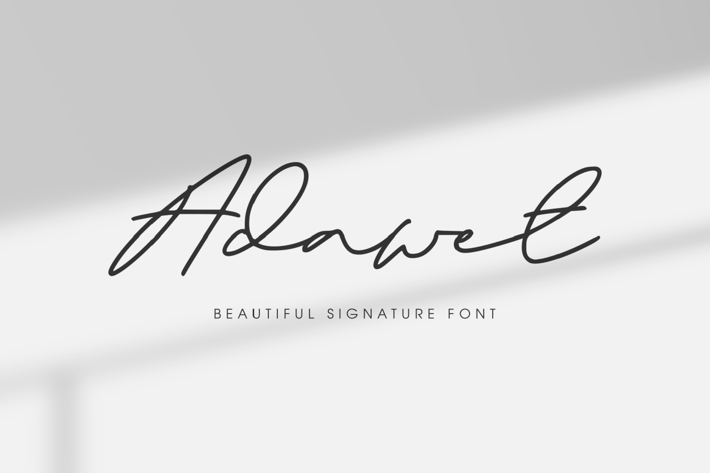
Adawet - Beautiful Signature Font
Adawet - Beautiful Signature Font, it’s perfect for logos, name card, magazine layouts, invitations, headers, or even large-scale artwork.